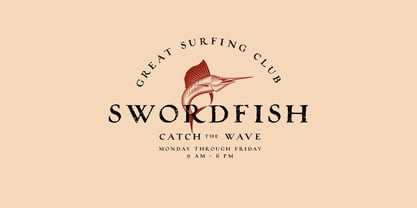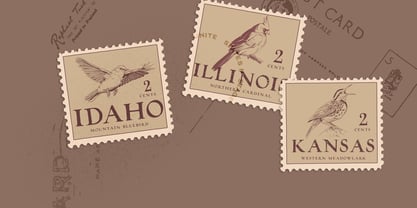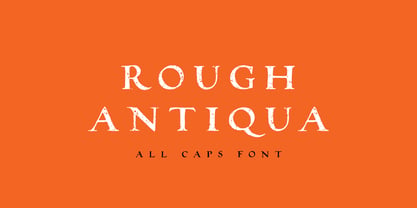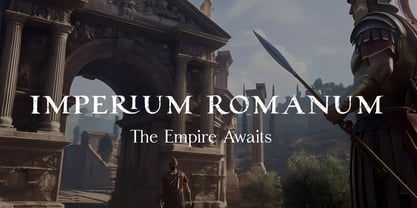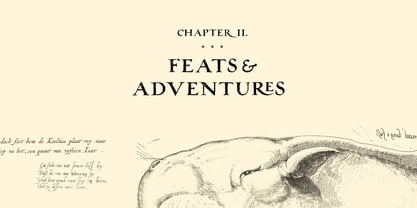
Rough Antiqua All Caps
A família de fontes Rough Antiqua All Caps foi desenhada por Aleksey Ivanov e publicada pela vatesdesign. Rough Antiqua All Caps contém 2 estilos e opções de pacote familiar. Saiba mais sobre esta família
Rough Antiqua is All Caps vintage font inspired by hand inked antiqua types from the Renaissance era. It has a lot of character and handmade classic feel to it. I personally use it a lot for book covers and labels. The font comes in 2 styles: Regular and Distressed